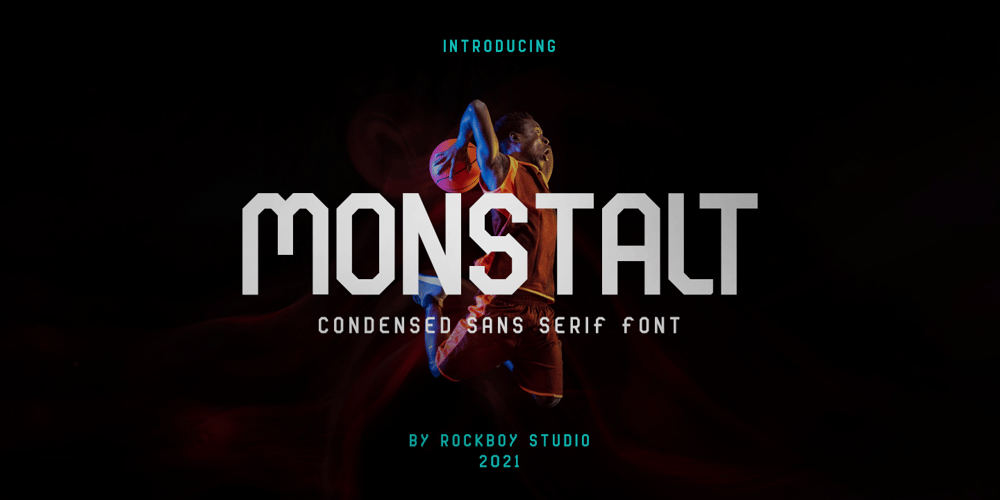
Monstalt
Monstalt font
Monstalt Font Family was designed by Hayinah and published by Rockboys Studio. Monstalt contains 1 styles and family package options. Monstalt is an elegant and bold display font. It can easily match your various projects, so add it to your creative ideas and watch how it makes them stand out.